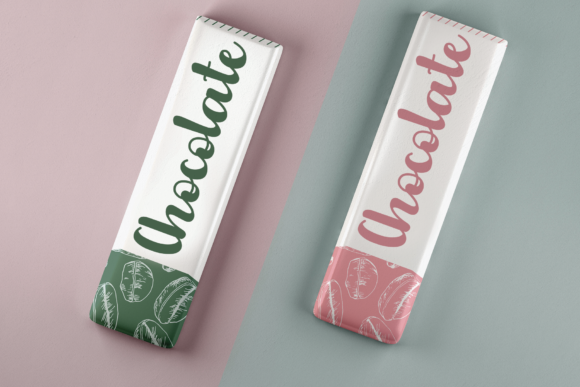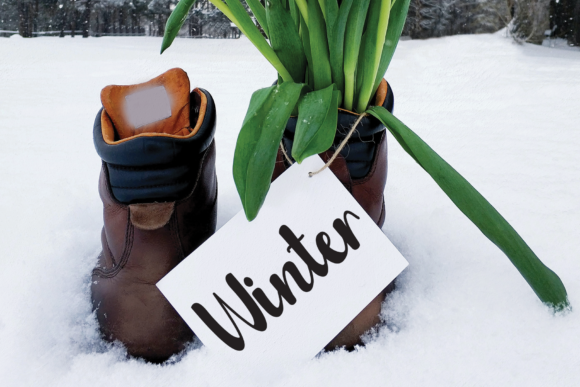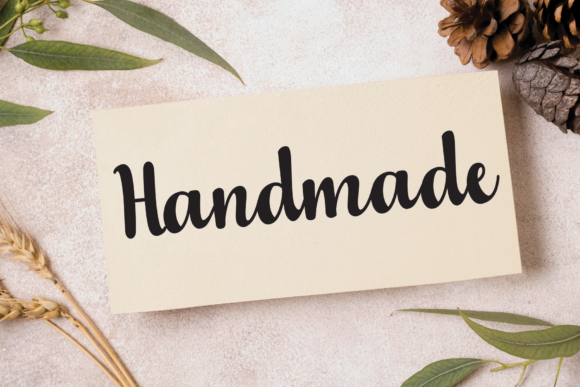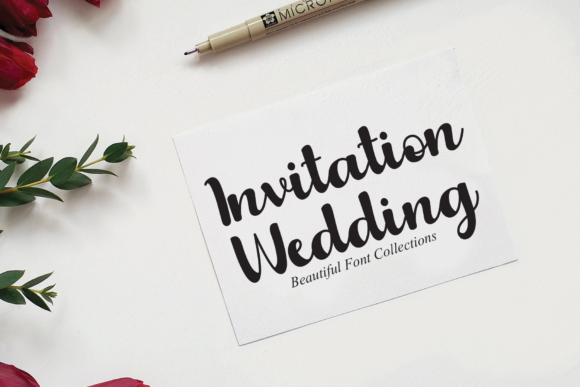
About Bold Font
Bold font stands out as a trendy script font, seamlessly blending contemporary flair with impeccable form. Featuring a perfect balance between thinness and boldness, this font exudes a sense of modernity while offering a diverse and well-rounded appearance. Tailored to elevate the aesthetics of any project, Bold font brings a touch of sophistication and versatility to your designs.
Crafted with meticulous attention to detail, Bold font exudes modernity and elegance with its sleek letterforms and harmonious strokes. Its contemporary feel injects a fresh and stylish vibe into every design, while its flawless form ensures readability and visual allure across a variety of applications.
Versatility is a defining characteristic of Bold font, making it suitable for a wide range of design projects. Whether utilized for branding, advertising, invitations, or packaging, this font adds a hint of sophistication and professionalism to each application.
The moderate weight of Bold font strikes a delicate balance, ensuring that it remains adaptable and versatile across different design styles and aesthetics. Its balanced approach imbues your projects with depth and character without overwhelming them.
Whether employed for digital or print media, Bold font elevates the appeal of your creations with its stylish script style. Its refined appearance imparts a sense of class and sophistication to logos, headlines, and promotional materials, allowing your brand to make a memorable impact with timeless elegance.
In summary, Bold font epitomizes contemporary chic and timeless elegance. With its flawless form, balanced weight, and diverse design elements, it enriches the visual appeal of any project, leaving a lasting impression on viewers and enhancing the beauty of your designs with effortless sophistication.